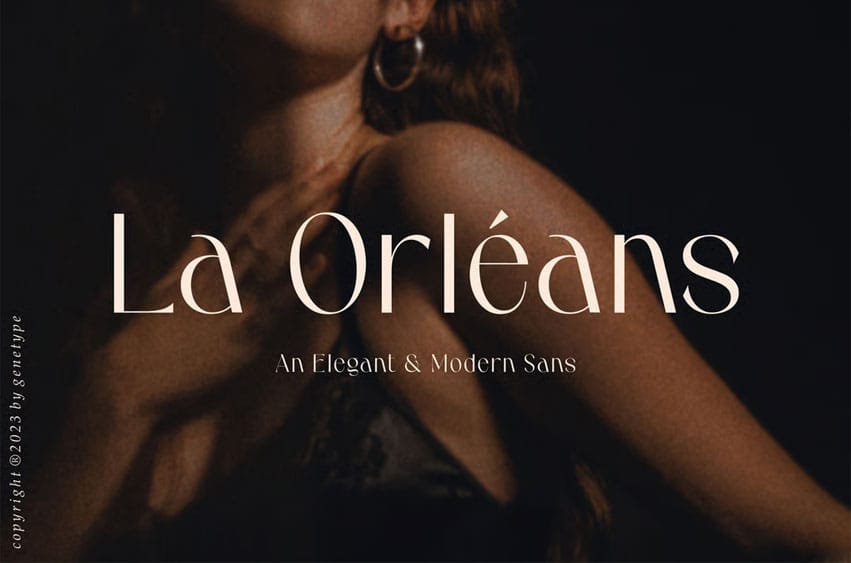
La Orléans Font is an elegant modern sans serif typeface that blends sophistication, femininity, and timeless style. Designed with refined curves, high contrast lines, and smooth transitions, La Orléans evokes a sense of quiet luxury — perfect for high-end branding, perfume packaging, fashion editorials, and elegant logos.
This typeface captures the essence of modern beauty with subtle Art Deco influence, giving every design a refined and elevated look. Its clean yet expressive letterforms make it ideal for stylish magazine titles, cosmetic packaging, invitations, and classy advertising campaigns.
La Orléans includes uppercase & lowercase characters, numerals, punctuation, and multilingual support. Available in OTF, TTF, and WOFF formats, it’s versatile for both print and digital use. Whether you’re designing a premium fashion brand or an elegant editorial layout, La Orléans brings sophistication and confidence to every word.